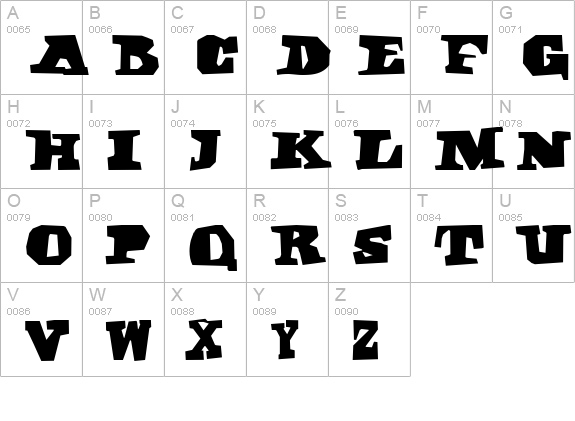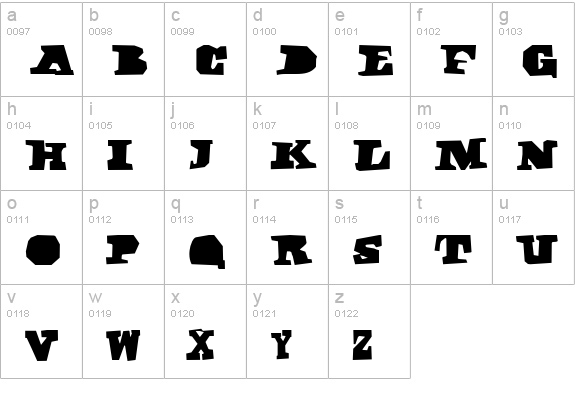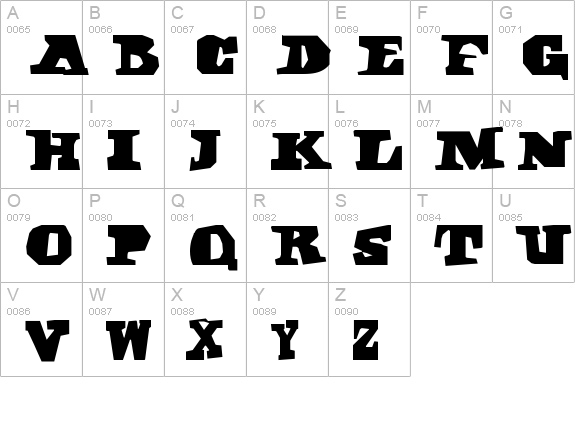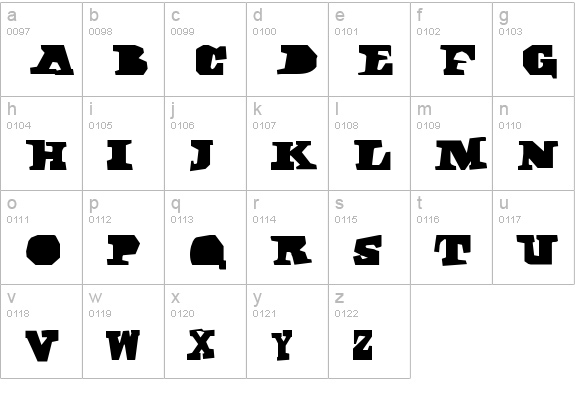
DarkBlack font is a stunning and bold typeface that exudes a sense of mystery and sophistication. With its sharp edges and dark aesthetic, this font is perfect for creating impactful designs that demand attention. The unique design of DarkBlack font makes it stand out from the crowd and adds a touch of elegance to any project. The best part about DarkBlack font is that it is completely free to download at FontsMarket.com. This means you can easily access this eye-catching typeface and use it in your designs without any cost. Whether you're working on a poster, logo, website, or any other creative project, DarkBlack font will elevate your design and make a strong visual statement. Download DarkBlack font today and unleash the power of this striking typeface in your work.